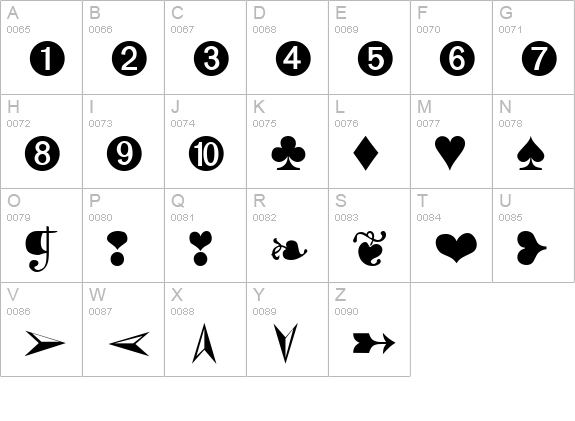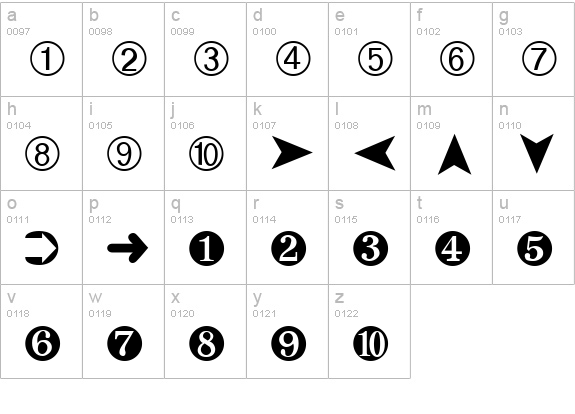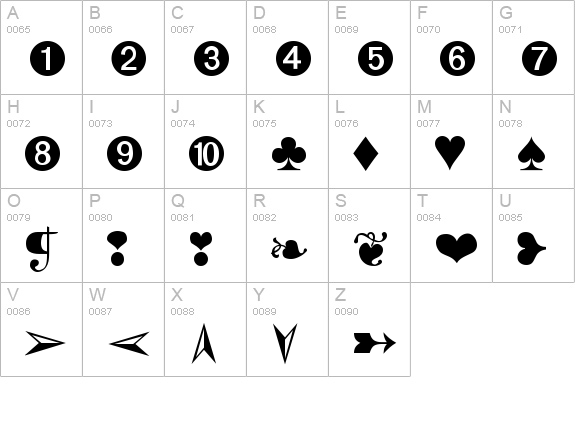
Dingbats2 Font Details
Dingbats2 font is a whimsical and playful typeface that is sure to add a touch of fun to your design projects. This font features a variety of unique symbols and icons that can be used to enhance your creative work. From arrows to stars to hearts, Dingbats2 offers a wide range of decorative elements that are perfect for adding a special touch to invitations, posters, and more. The best part? Dingbats2 font is completely free to download at FontsMarket.com! Now you can easily access this charming font and incorporate its delightful characters into your designs without any cost. Don't miss out on the opportunity to unleash your creativity with Dingbats2 font - download it today and let your imagination run wild!